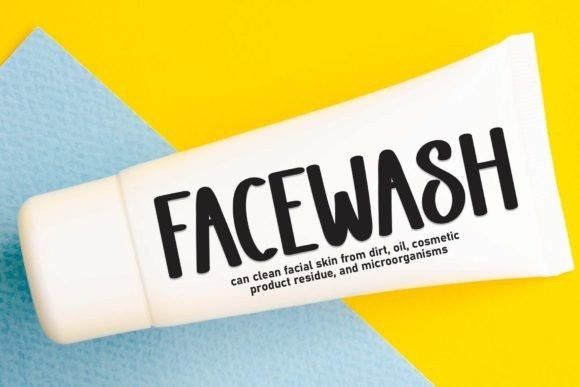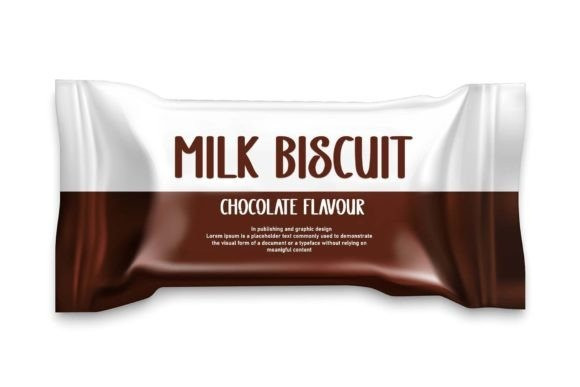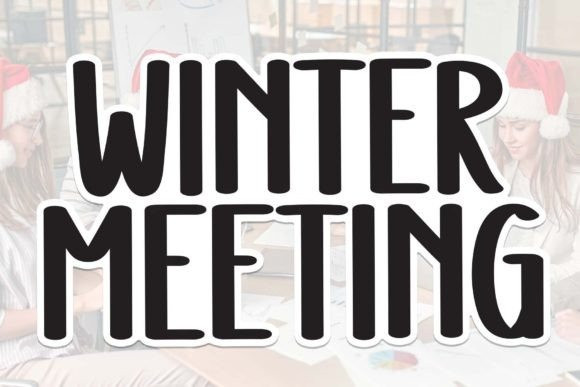
Winter Meeting Font
Winter Meeting Font is a sweet and friendly handwritten font. Cute and versatile, this font is ideal for writing wedding invitations, cards, or any other design that might need a fun touch!